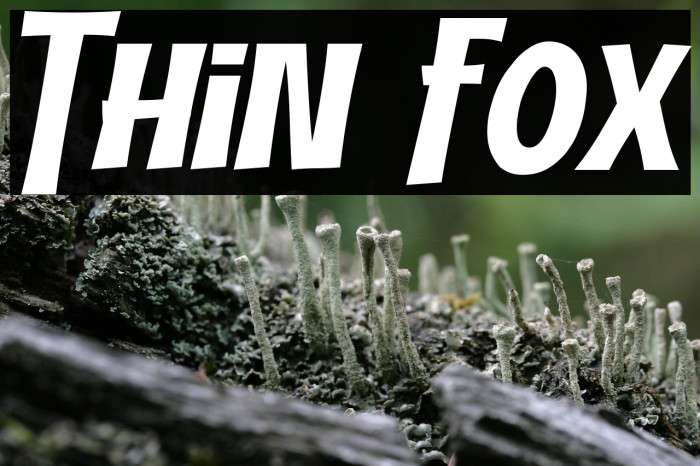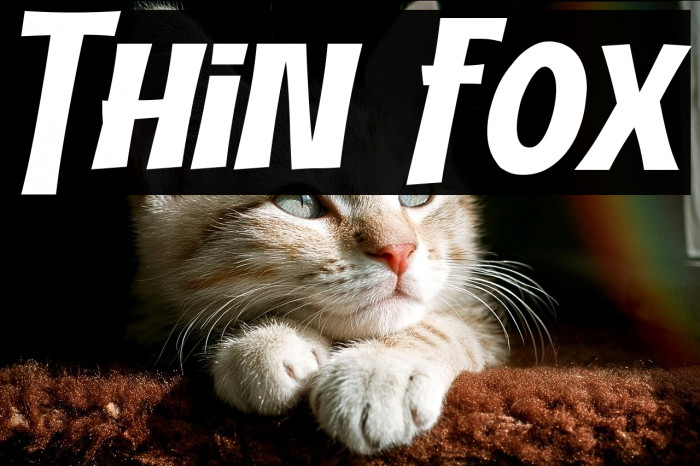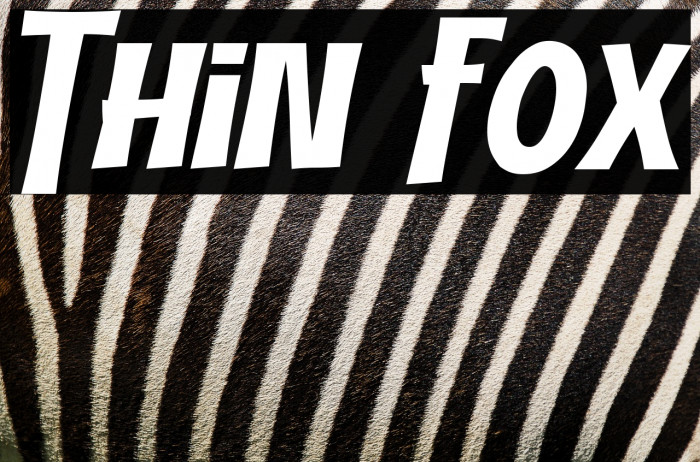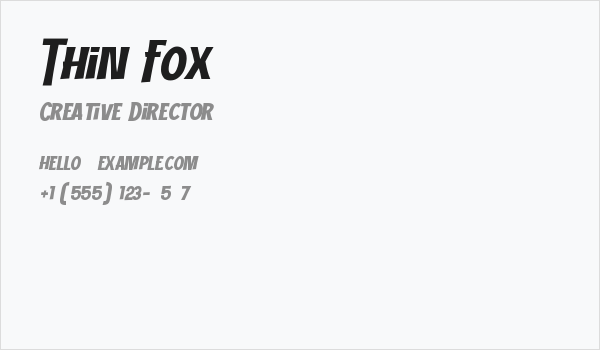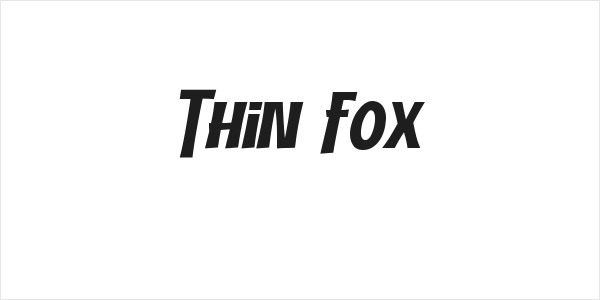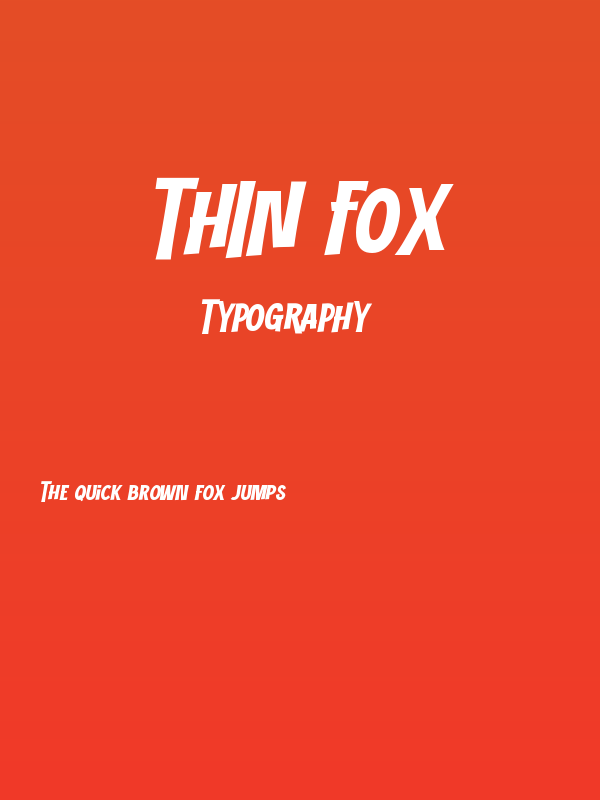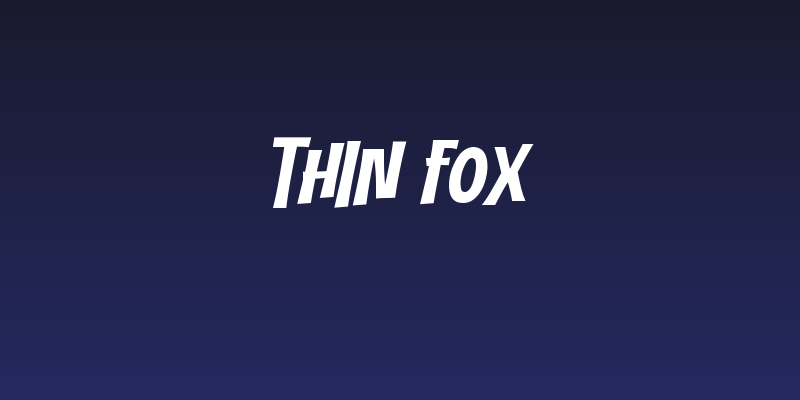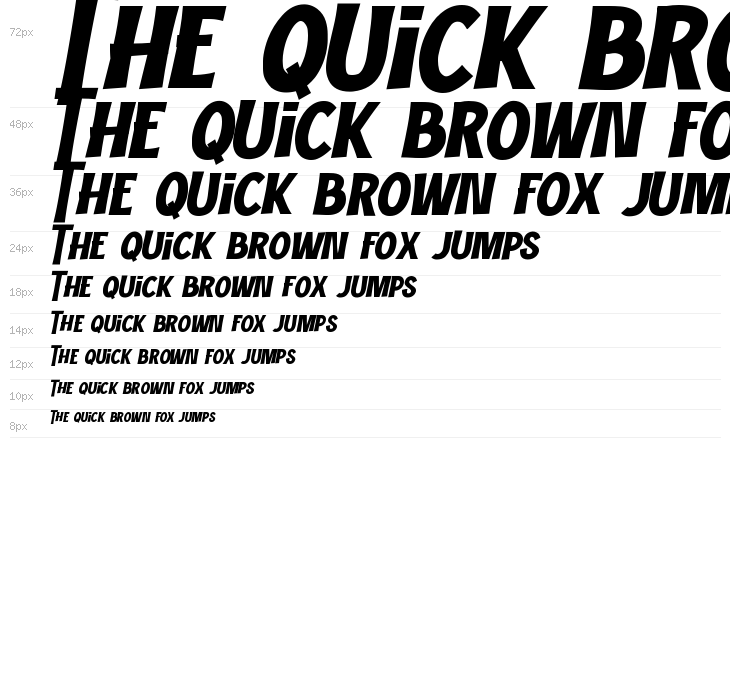
Thin Fox Font
Thin Fox Description
This font exhibits a bold and dynamic style with a strong, slanted orientation that suggests movement and energy. The uppercase and lowercase letters are designed with a consistent slant, giving a sense of urgency and speed. The strokes are thick and uniform, contributing to a bold appearance. The numbers and special characters maintain this energetic style, ensuring a cohesive look across all characters. This font is particularly suitable for projects that require a sense of dynamism and impact, such as sports branding or action-oriented designs.
| Proposed Projects | Ideal for sports branding, action-themed posters, dynamic logos, and impactful headlines. |